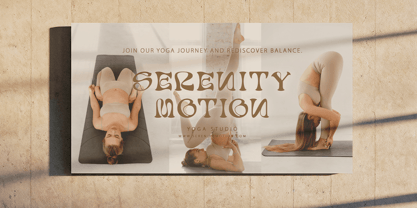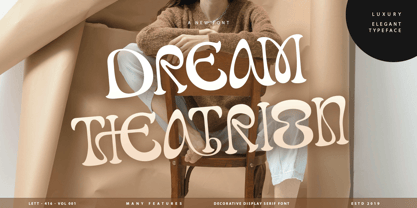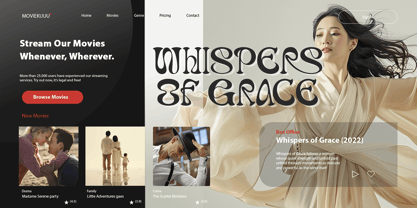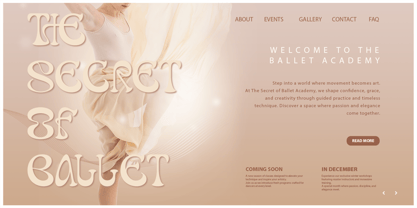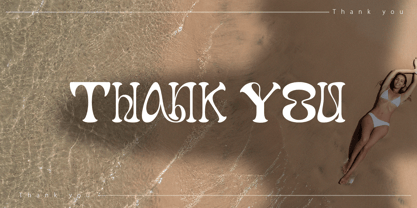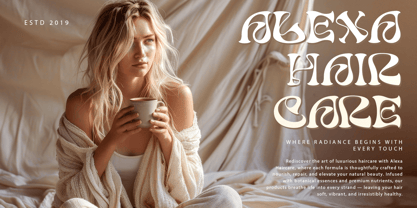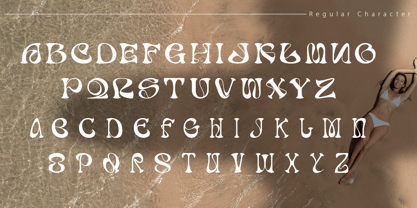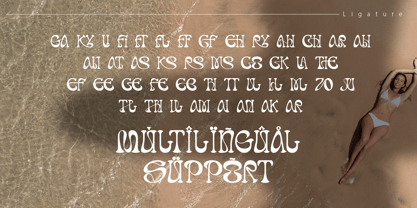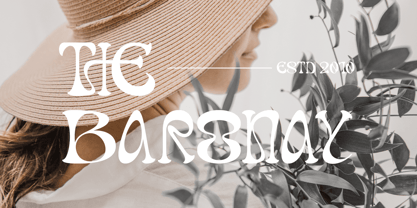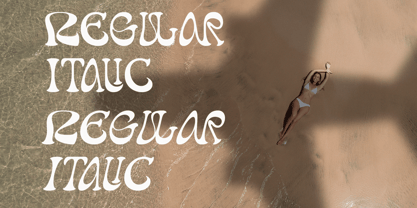
Dream Theatrion
The Dream Theatrion Font Family was designed by Thomas Aradea and published by Letterara. Dream Theatrion contains 2 styles and family package options. More about this family
Introducing Dream Theatrion, a decorative serif font that blends classic artistry with contemporary sophistication. Each curve and contour is crafted to evoke a sense of drama, poise, and refinement, making it a perfect choice for high-end branding, editorial layouts, and timeless design statements.   Dream Theatrion’s unique letterforms capture a theatrical elegance while maintaining modern versatility. Its distinctive shapes and smooth contrast bring a luxurious touch to logos, beauty products, magazines, and creative headlines.   Available in Regular and Italic styles, Dream Theatrion offers full PUA encoding for easy access to alternate characters and ligatures, ensuring endless design possibilities. Step into the world of refined aesthetics with Dream Theatrion, where elegance meets artistic expression.